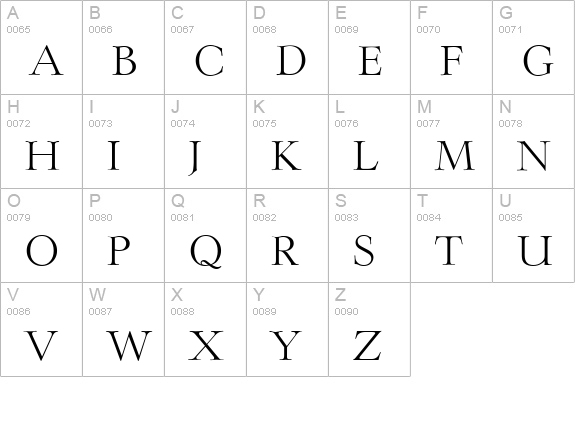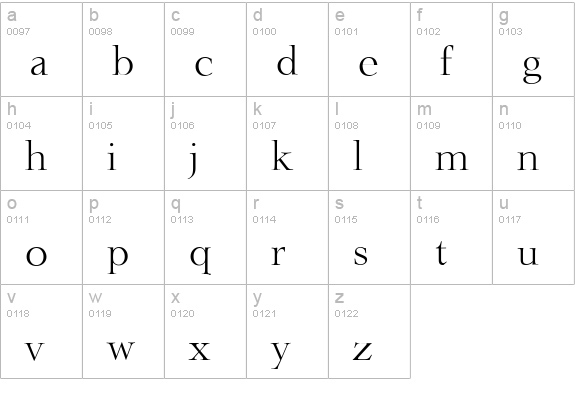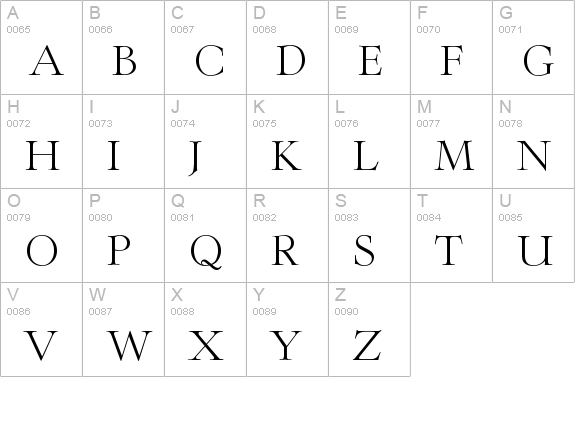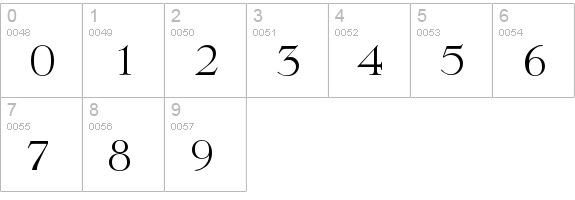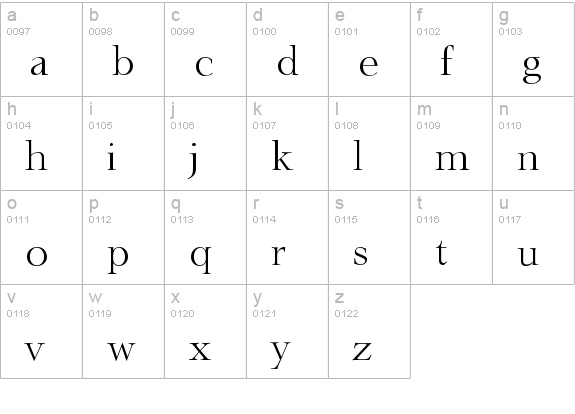
LingwoodSerial-Light-Regular is a refined, elegant variant in the LingwoodSerial typeface family \xE2\x80\x94 well suited to elegant body text, refined sub-headings, and luxury branding.
LingwoodSerial-Light-Regular is a modern and elegant typeface that exudes sophistication and professionalism. With its clean lines and sleek design, this font is perfect for a wide range of projects, from branding to editorial design. Its light weight adds a touch of delicacy and refinement to any text, making it ideal for conveying a sense of elegance and style. The best part? LingwoodSerial-Light-Regular is available for free download at FontsMarket.com. This means you can easily access this beautiful font and use it in your projects without any cost. Whether you're working on a website, a print design, or any other creative endeavor, LingwoodSerial-Light-Regular is sure to elevate your work with its timeless appeal and versatility. Don't miss out on this amazing opportunity to enhance your designs with the exquisite LingwoodSerial-Light-Regular font. Download it for free today and see how it can transform your projects with its sophisticated charm.